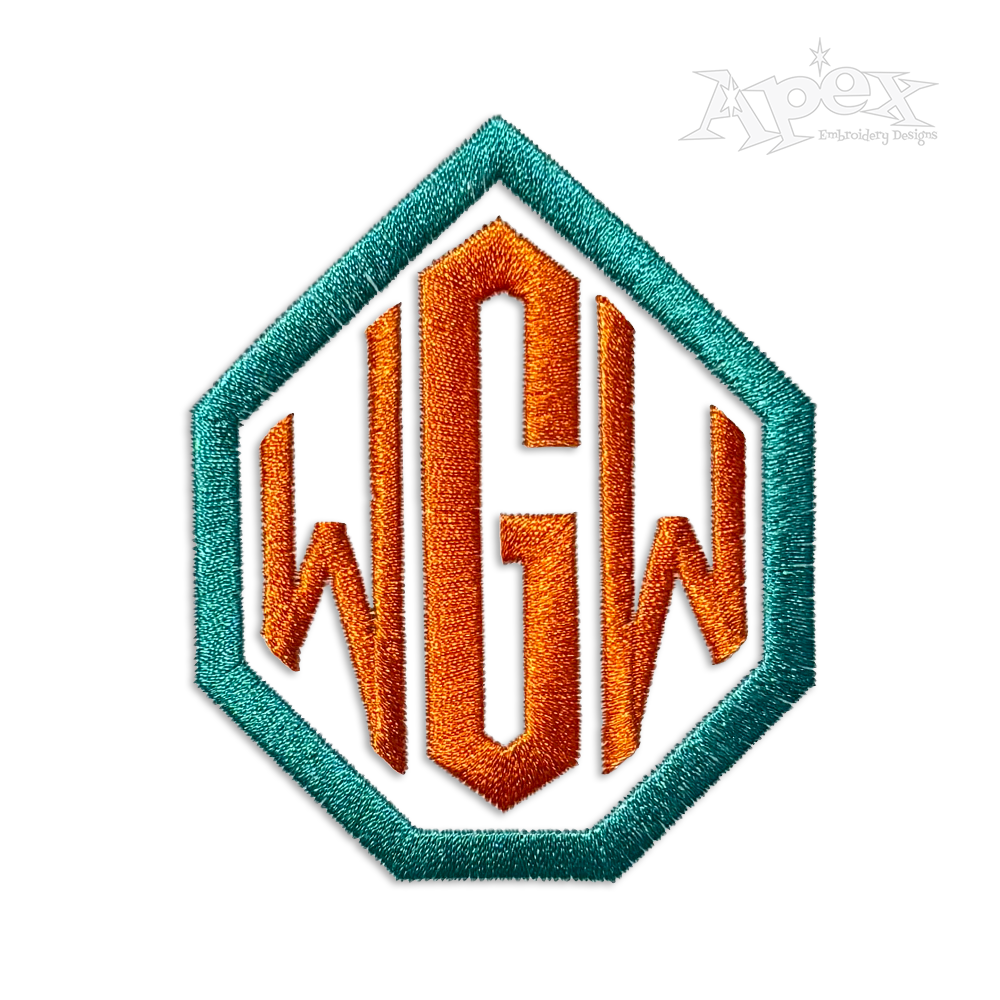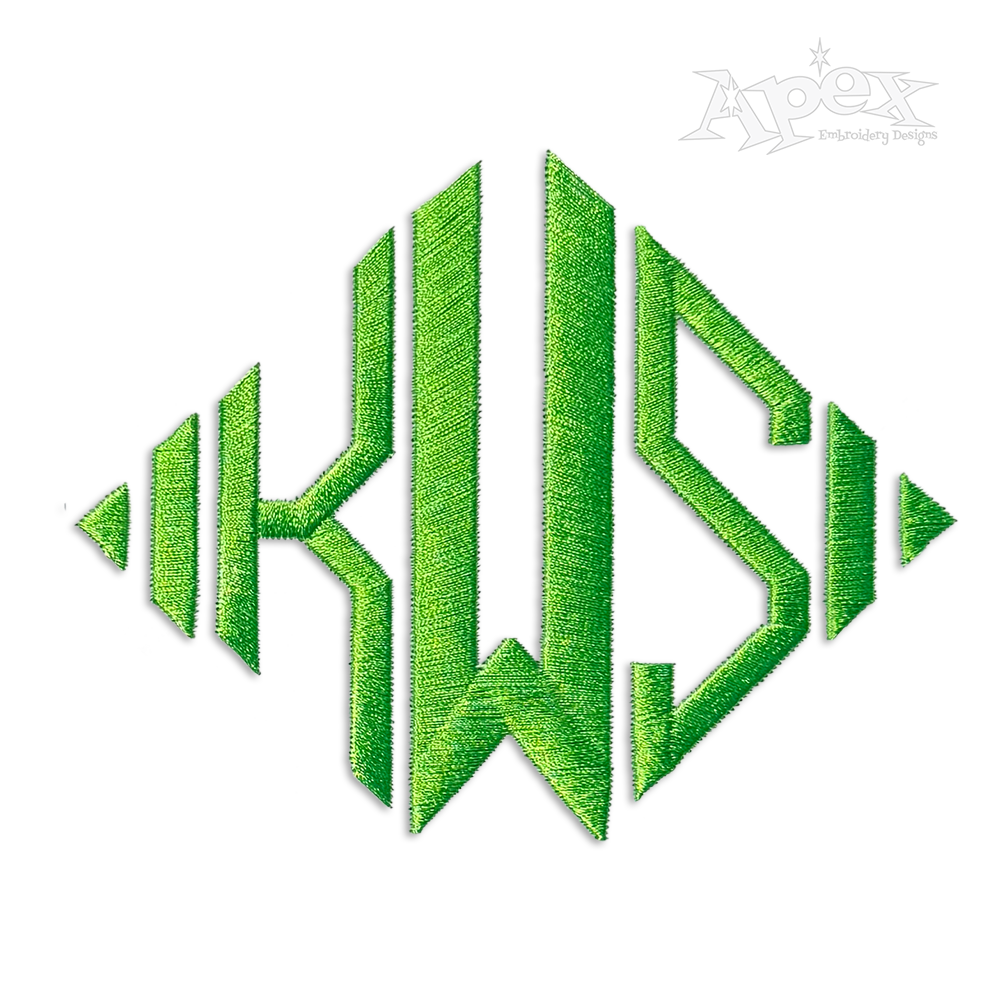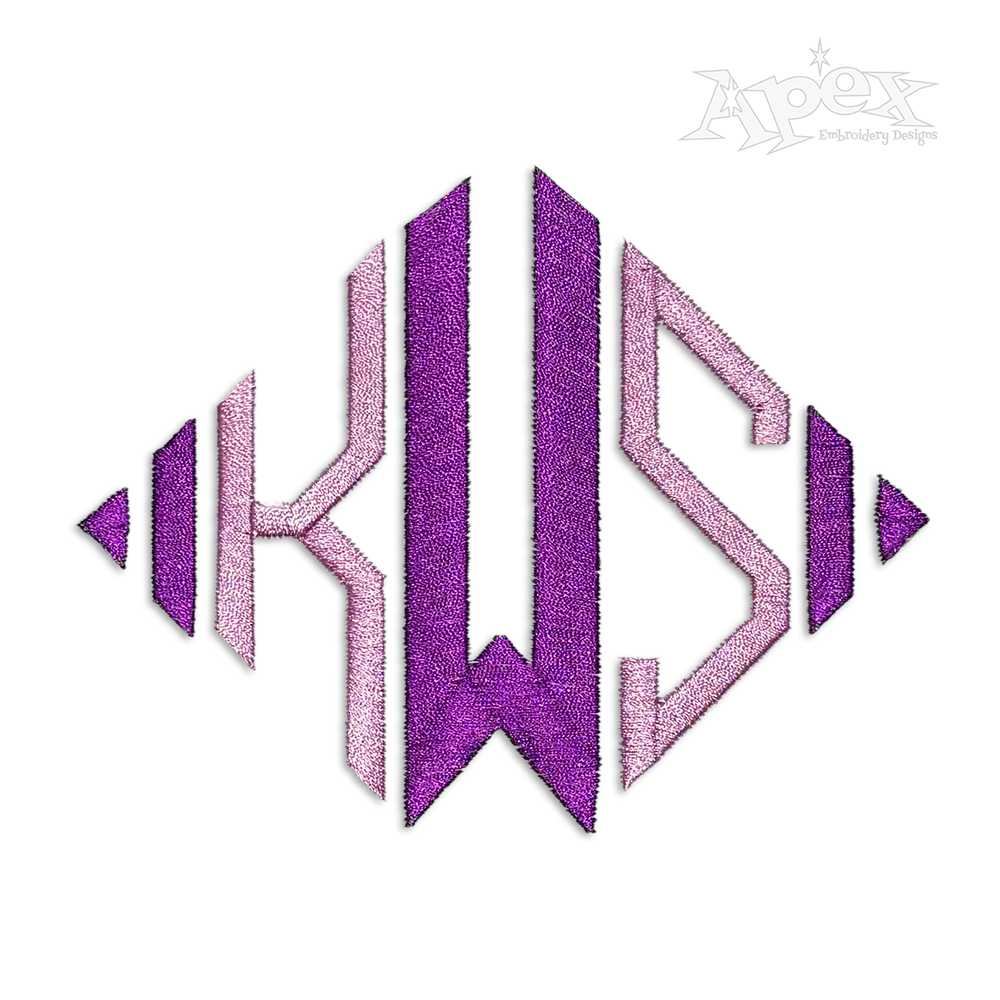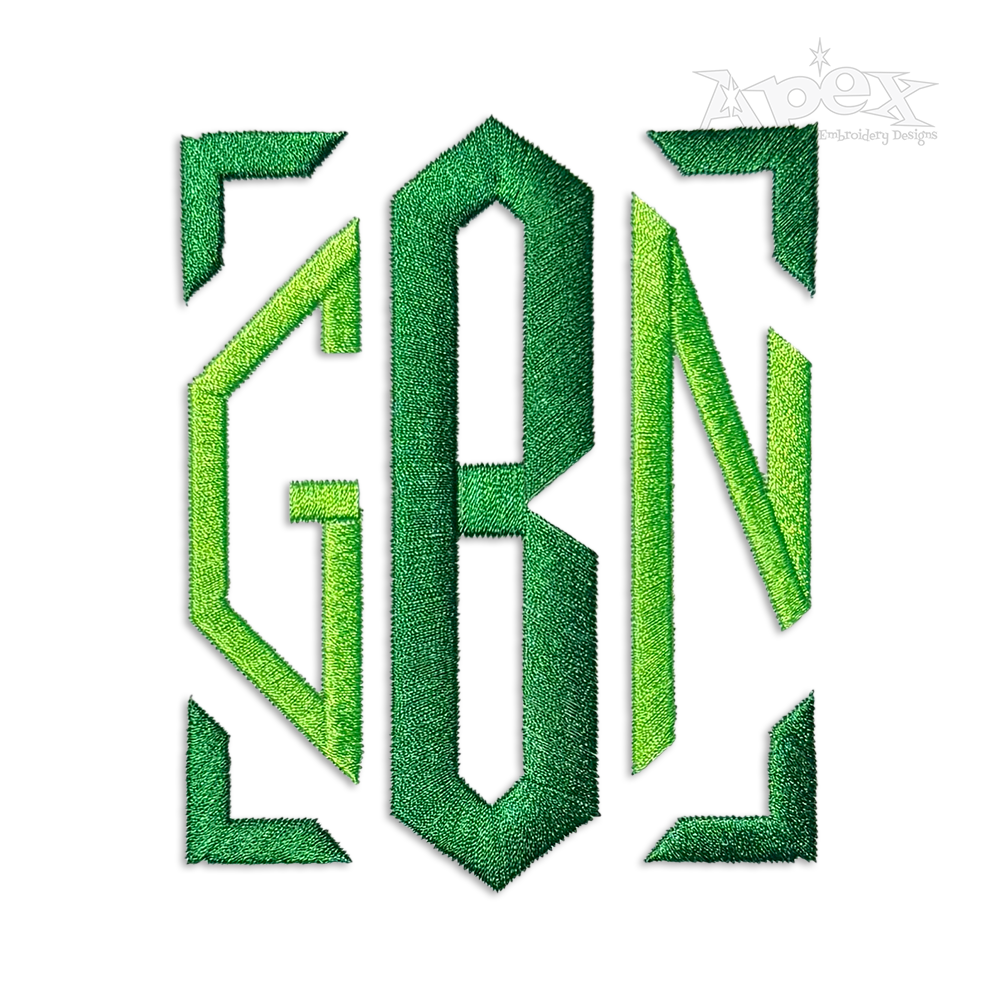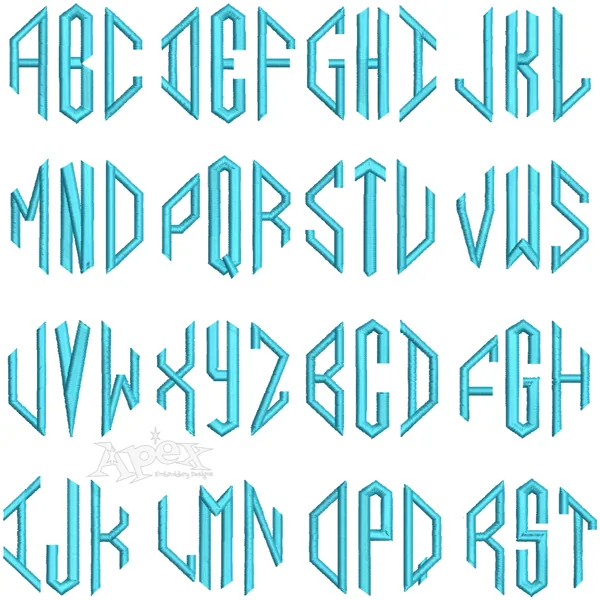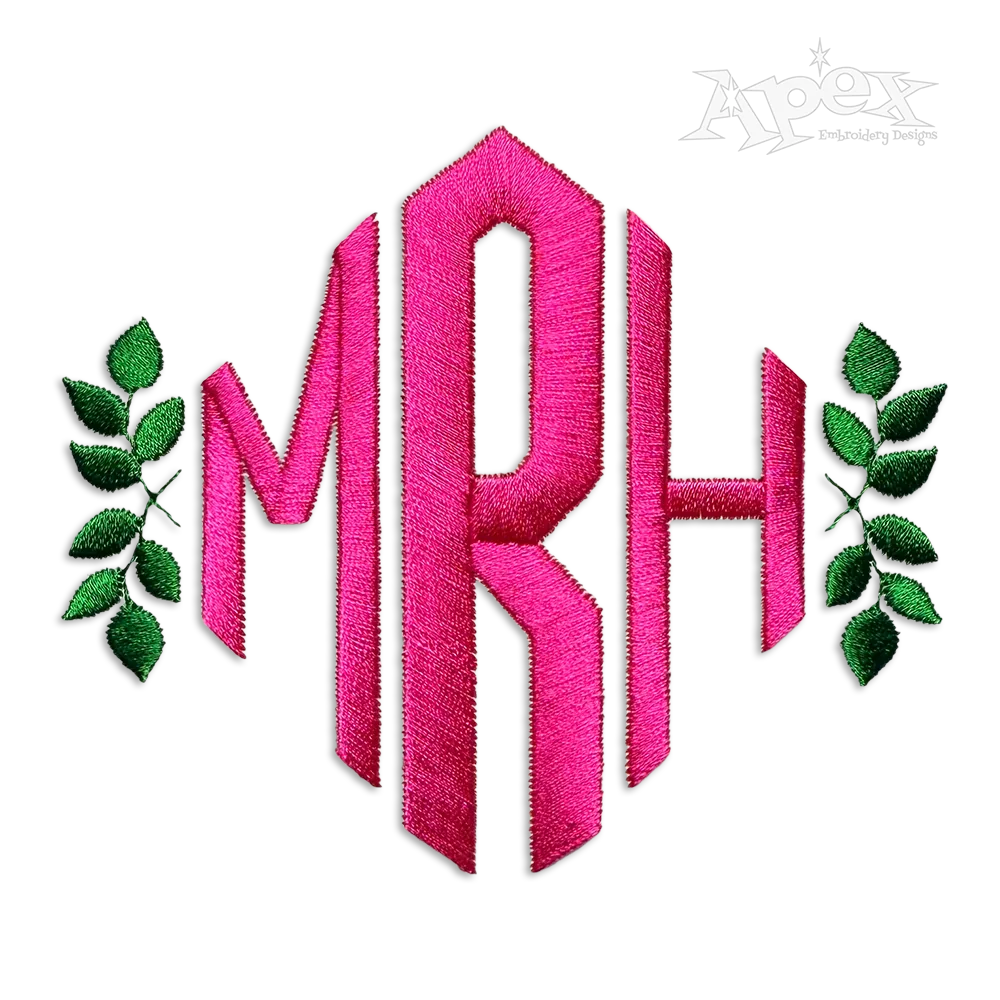
Diamond Tri Embroidery Font
Drawing inspiration from the refined symmetry of Art Deco architecture and the enduring poise of mid-century bespoke tailoring, the Diamond Tri Embroidery Font is designed to make a commanding, sophisticated statement. Each character is balanced with mathematical grace, allowing the three-letter monogram to coalesce into an iconic diamond silhouette that feels both distinctly vintage and unmistakably modern. Whether rendered in subtle tonal sheen on crisp linen or stitched in bold, contrasting thread on luggage-grade canvas, this collection brings a tailored, heirloom finish to every stitch out.
- Coordinating Diamond Frames: Includes custom-scaled accent frames engineered to encase your monograms in crisp, jewel-like borders.
Project Ideas for Diamond Tri Embroidery Font
The structured geometry of Diamond Tri lends itself to personalized gifting and tailored living spaces:
- Heirloom Table Linens: Stitch stunning, architectural monograms onto heavy mitered-corner dinner napkins and matching runner sets for formal entertaining.
- Bespoke Bedding & Guest Towels: Adorn crisp percale pillowcases, waffle-weave hand towels, or plush bath sheets with the prominent 3-inch layout.
- Tailored Menswear Accents: Utilize the 1-inch variant on French cuffs, shirt pockets, or the chest pocket of unstructured linen blazers.
- Resort & Travel Accessories: Transform heavy canvas boat totes, leather-trimmed weekender bags, and travel pouches into personalized statement pieces.
- Bridal & Housewarming Gifting: Create bespoke bridal robe sets, personalized ring cushions, and cherished family gifts featuring the couple's newly shared initials.
Achieving a high-end designer look depends heavily on placement and proportion:
- Corner Diagonal: Position your monogram at a 45-degree angle approximately 2.5 to 3 inches from the hemmed point of dinner napkins or cocktail coasters for a timeless, country-club drape.
- Center Chest & Crest: On polo shirts, knit pullovers, or spa robes, align the center letter along the classic left chest axis, roughly 7 to 9 inches down from the shoulder seam.
- Cuff & Hem Detailing: Position the 1-inch monogram facing inward or centered atop shirt cuffs and hem bands for discreet, understated bespoke luxury.
- Architectural Pillow Center: Place the 3-inch monogram with its accompanying diamond frame dead center on lumbar pillows or centered within the upper third of Euro shams.
Diamond Tri Embroidery Font Craft & Letterform Details
Digitizing a cohesive diamond monogram requires far more than simply slanting standard letters; it demands an uncompromising appreciation for stroke weight, optical alignment, and stitch physics. The outer flanking letters have been sculpted with angled outer perimeters and vertical inner edges, framing the majestic center initial with absolute geometric harmony. Every satin column is programmed with tailored underlay to anchor down unstable fabric grains, preventing push-pull distortion along the diagonal axes. As the needles travel, the stitches catch the light with consistent, luminous brilliance, gliding smoothly around corners and terminating in sharp, razor-clean mitered corners that define true artisan embroidery.